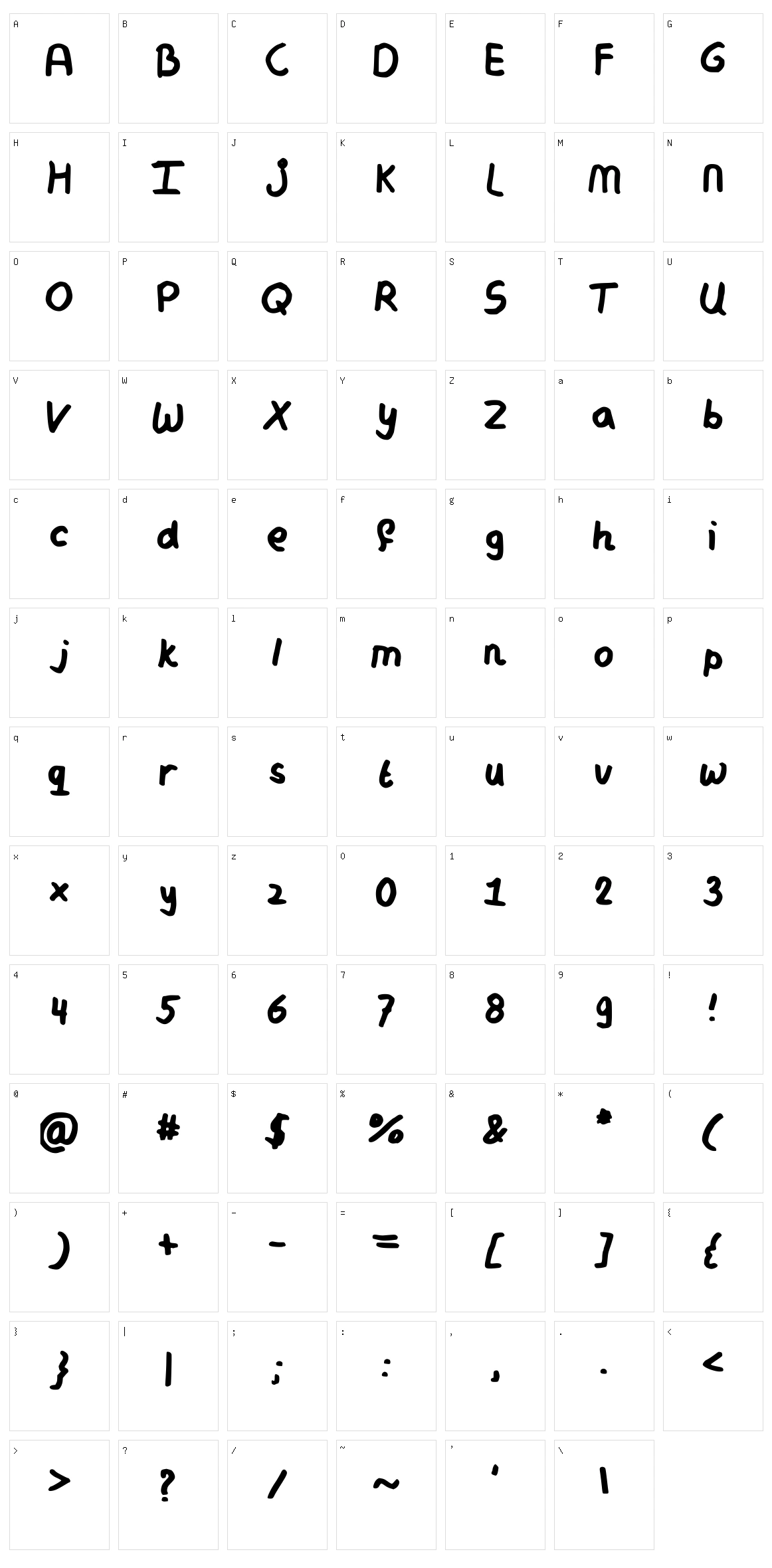
As the name says, it's my handwriting.
And yeah, I think it's really messy.
It's my first font.
Ok, there isn't anything else to say, so enjoy the font. :D